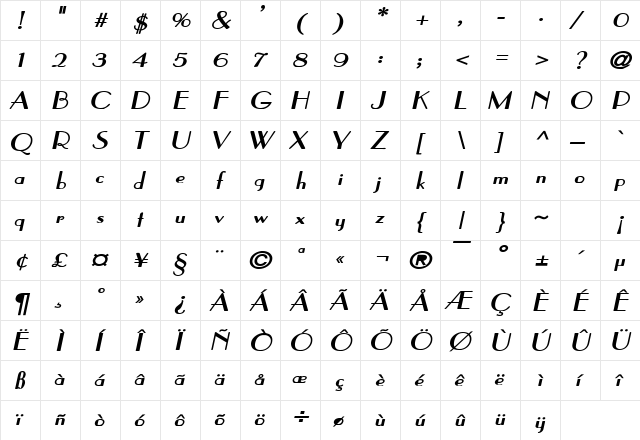
Paris Wide Bold Italic
Design Context for Paris Wide Typeface
Paris Wide offers clean, dependable letterforms without strong stylistic allegiance, making it a practical choice for designers who need flexibility. The dynamic lean of this cut emphasises speed and emphasis in any layout. Its bold stroke weight gives it real presence on the page.
Pro Tip: Try Paris Wide for annotation and caption copy alongside an upright companion — the contrast in angle creates a dynamic but ordered typographic system.